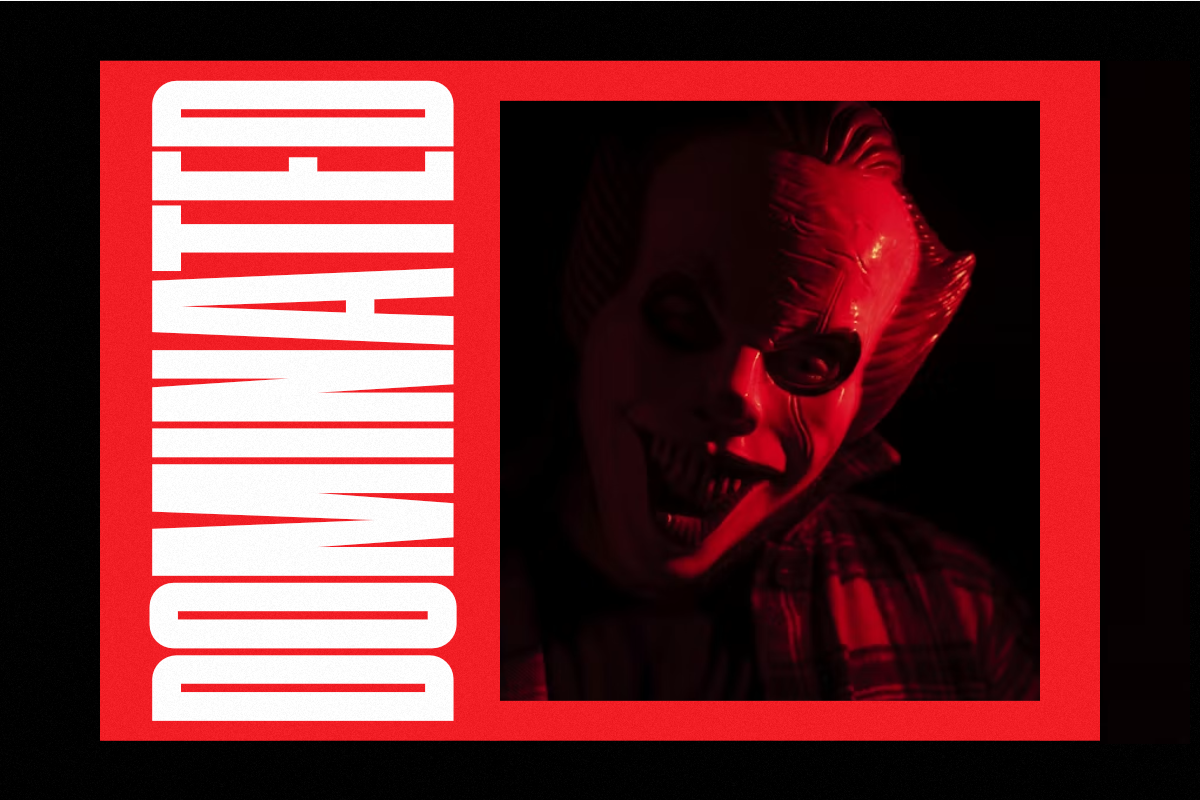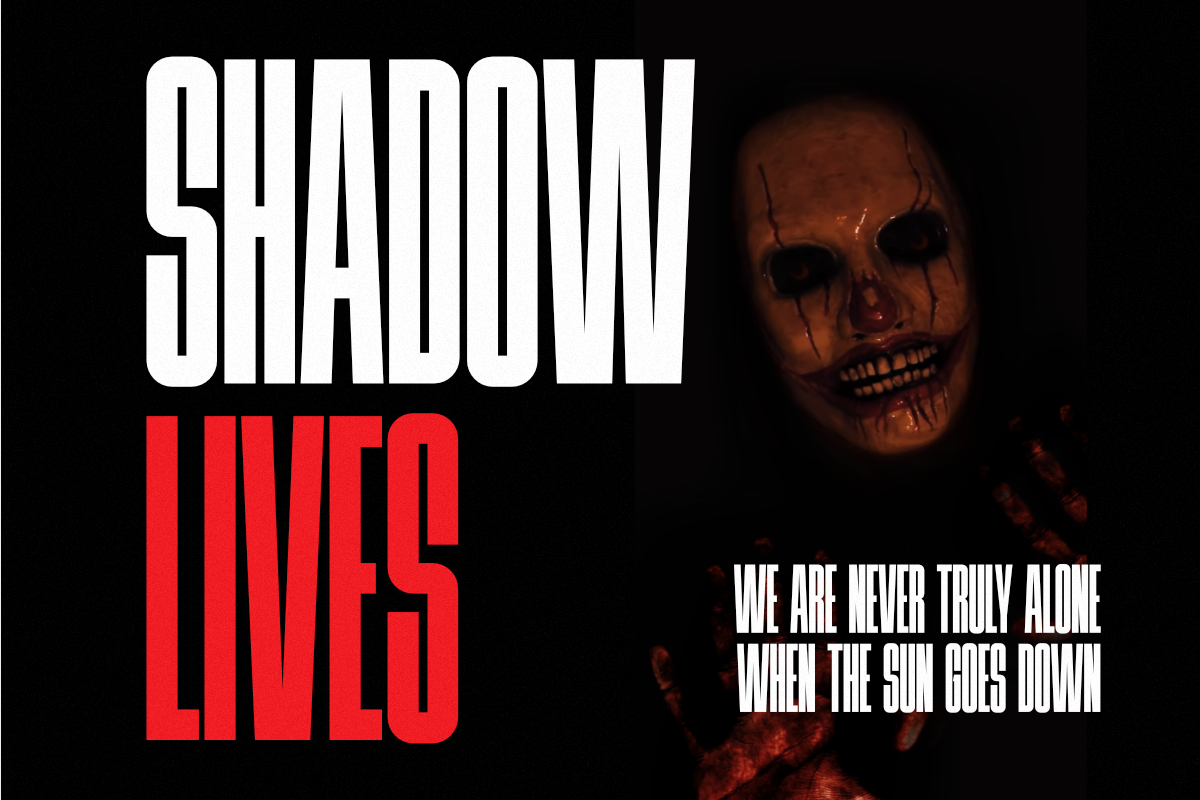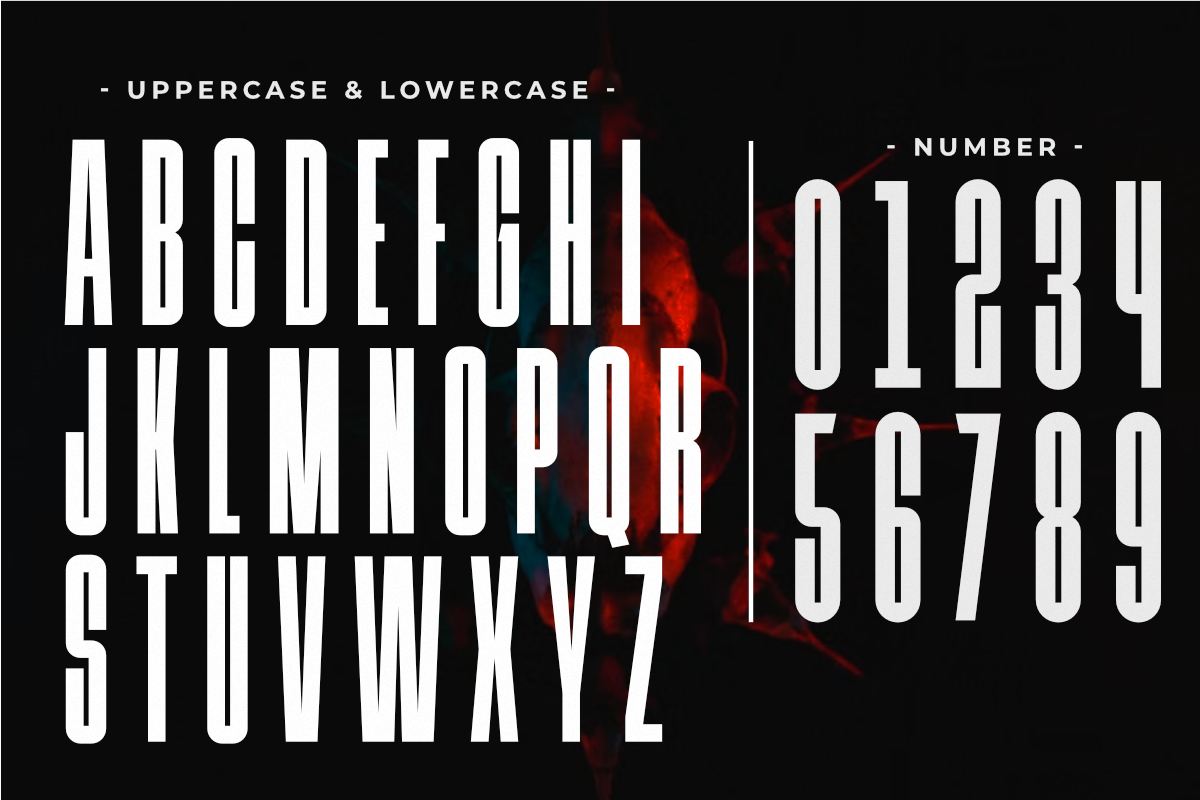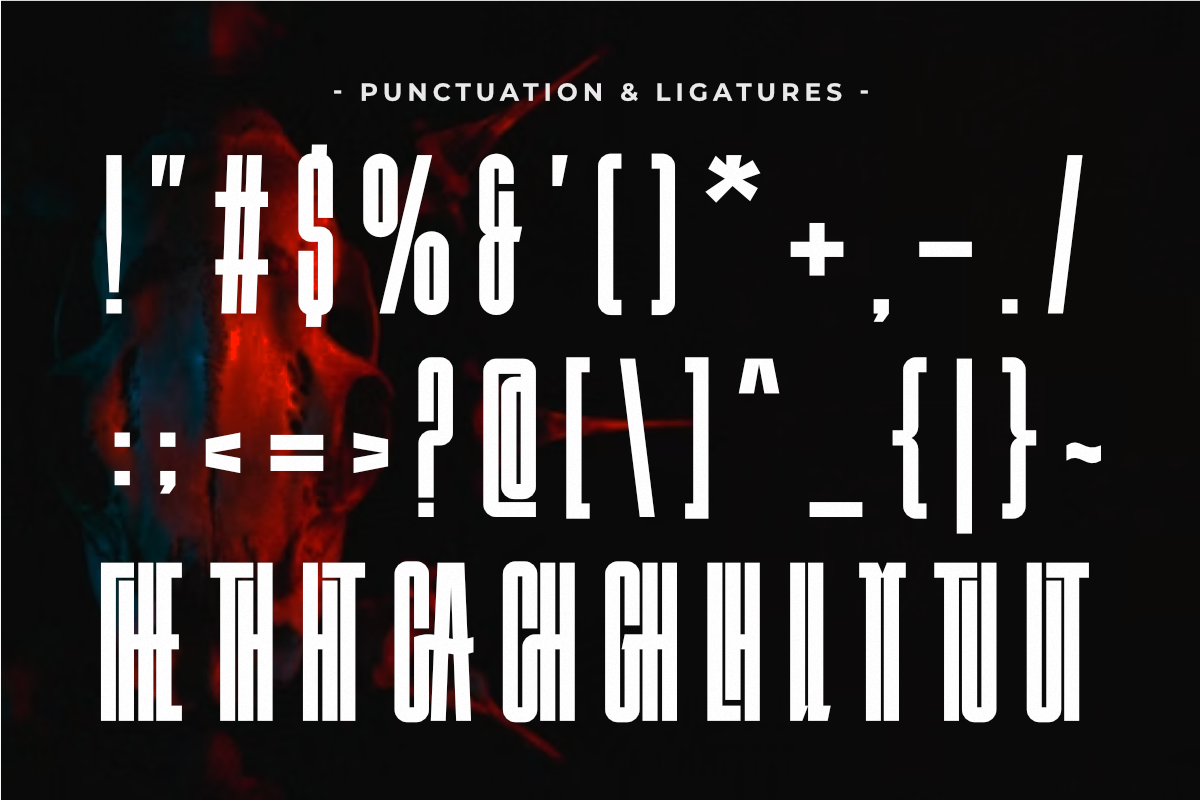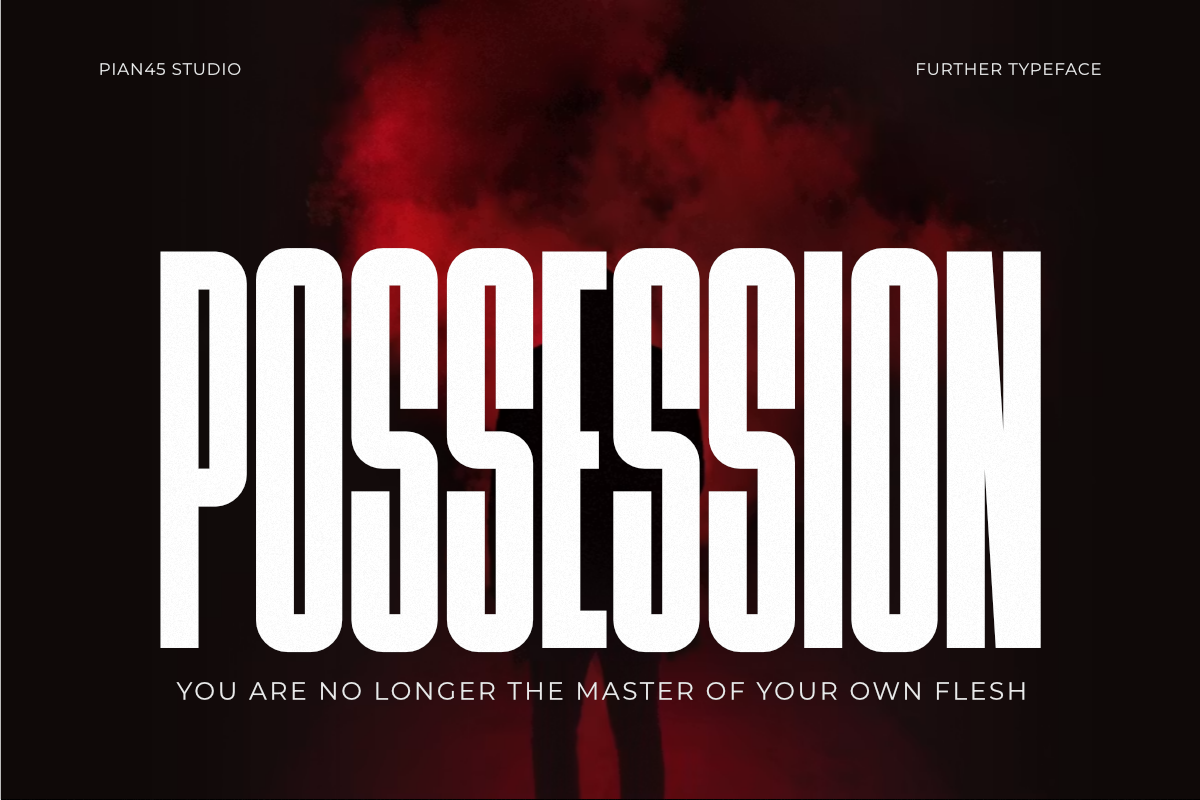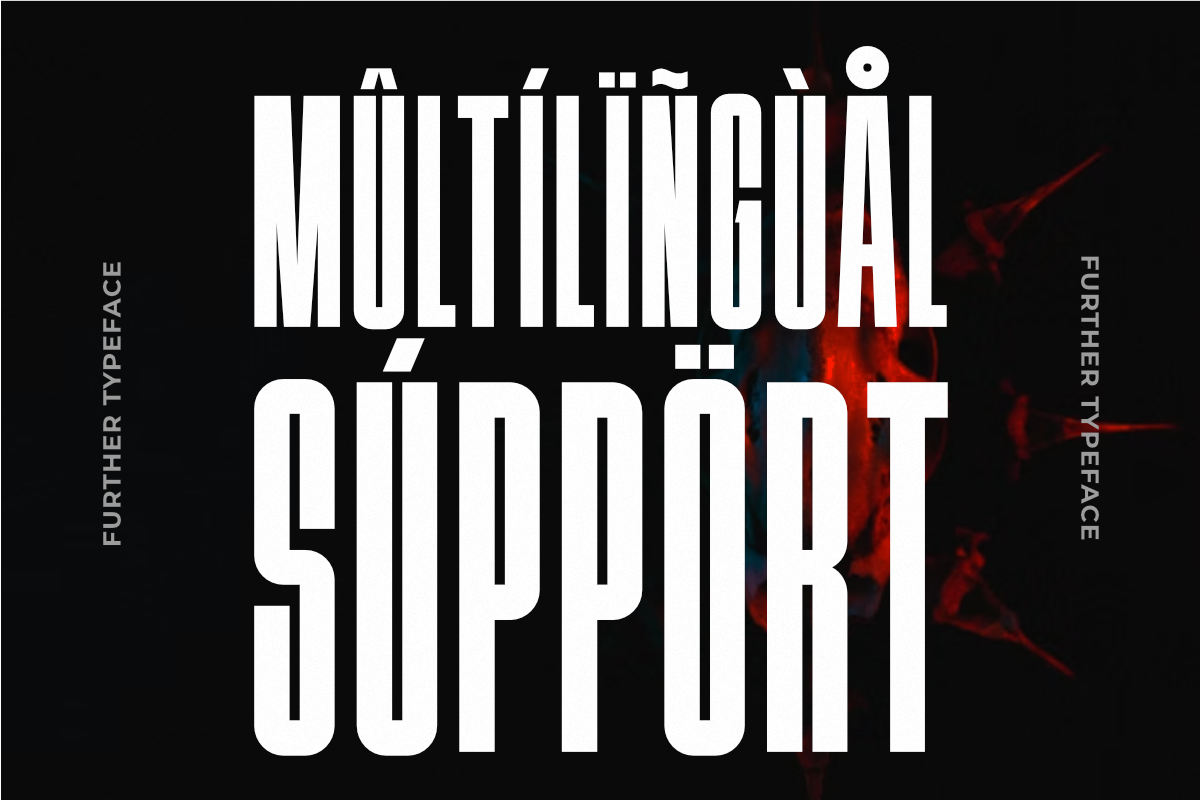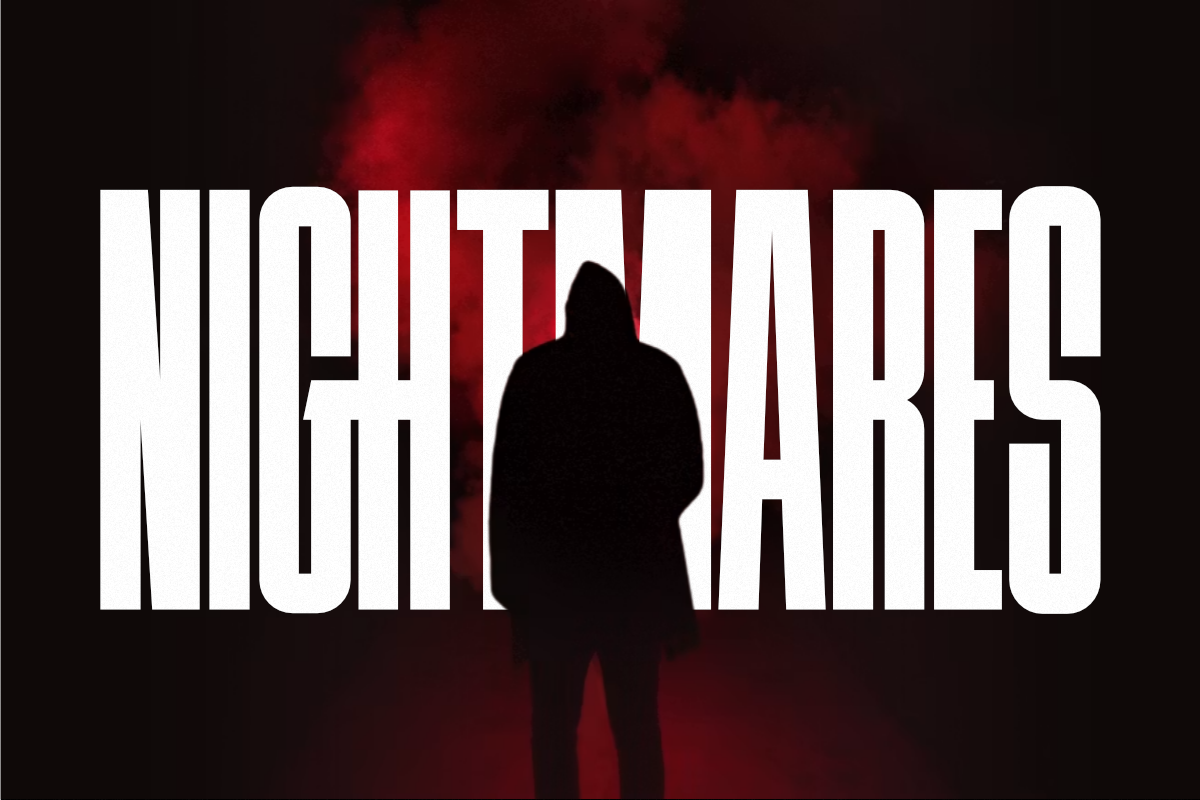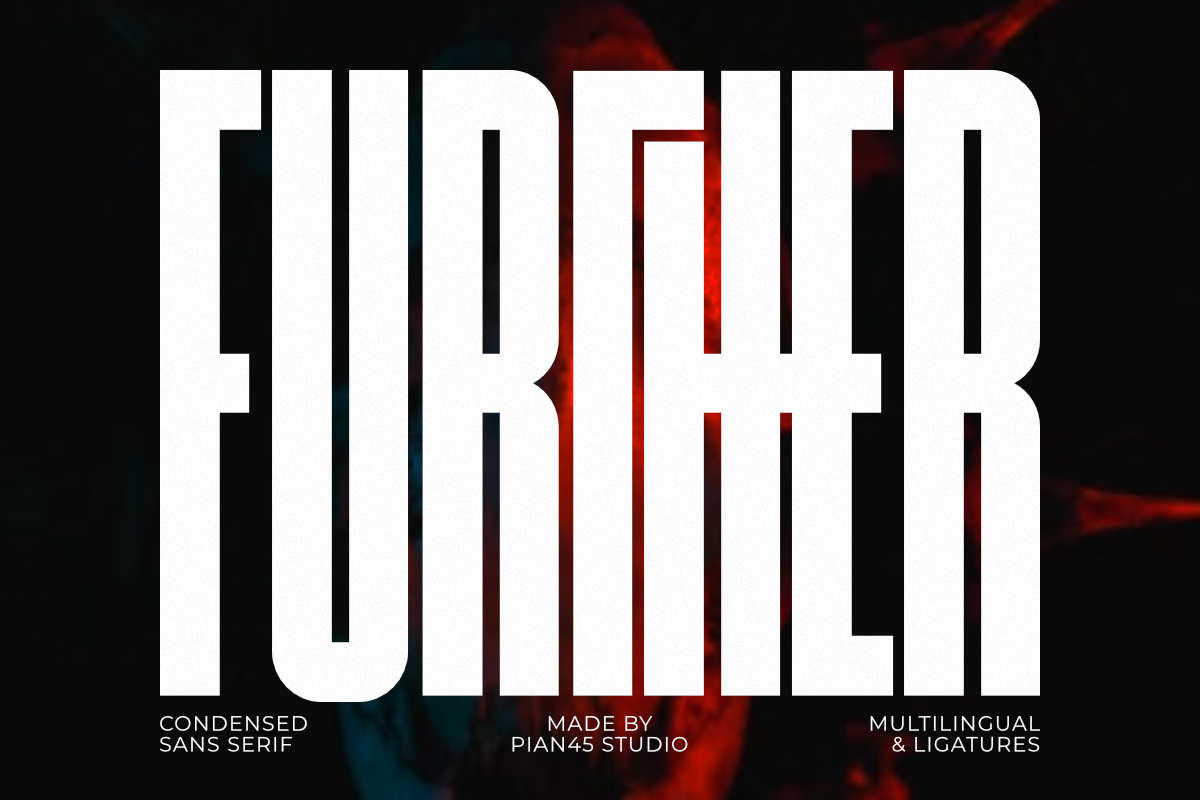
Further - Tall Sans Display Font
Further is a sleek, ultra-tall Modern Condensed Sans Serif font engineered to project forward-thinking vision, futuristic aesthetics, and bold visual impact. Featuring sharp geometric cuts, smooth outer curves, unique discretionary ligatures, and a space-saving condensed typeface structure with full multilingual support, this all-caps font is built for futuristic branding, tech startup logos, urban streetwear apparel, cinematic movie titles, and sports graphics. Its tall, commanding presence guarantees maximum legibility in narrow spaces, making it the perfect choice for high-visibility headlines, event posters, custom merchandise, and digital marketing banners.